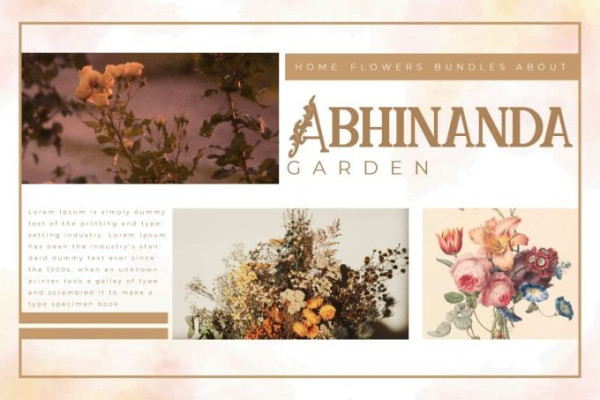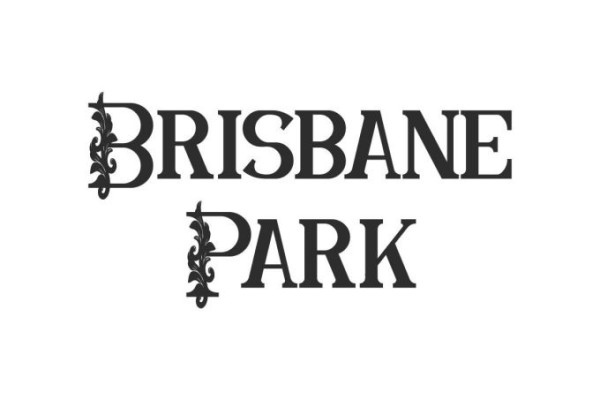
Brisbane Park Font
Brisbane Park Font is a beautiful serif display font with awesome flower decoration on the characters. It will be able to elevate your designs to high level, such as apps, billboard, brand logo, brochure, business card, catalog, cover, embossed design, flyer, header, invitation, label, magazine catalog, mockup design, poster, product packaging, quote, screen print, signage, stationery, sticker, title, website, etc.
Brisbane Park Font includes full set of ALLCAPS with different size between uppercase and lowercase, Number, Punctuation, and Symbol. Appear charming with a timeless beauty that will enhance your business, such as accessories, botanical, boutique, fashion designer, florist, furniture, gardener, handicraft, hotel, lodging, perfume brand, photography, restaurant, spa salon, wedding organizer, writer, and many more.